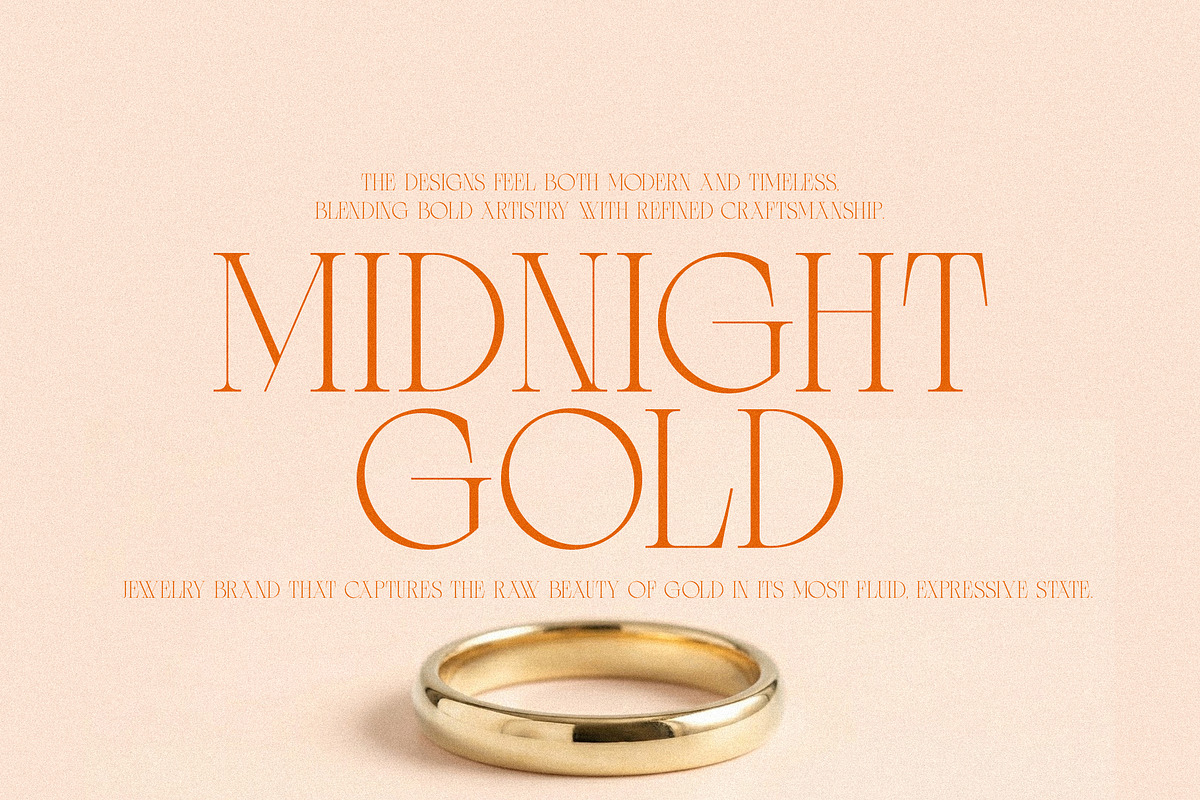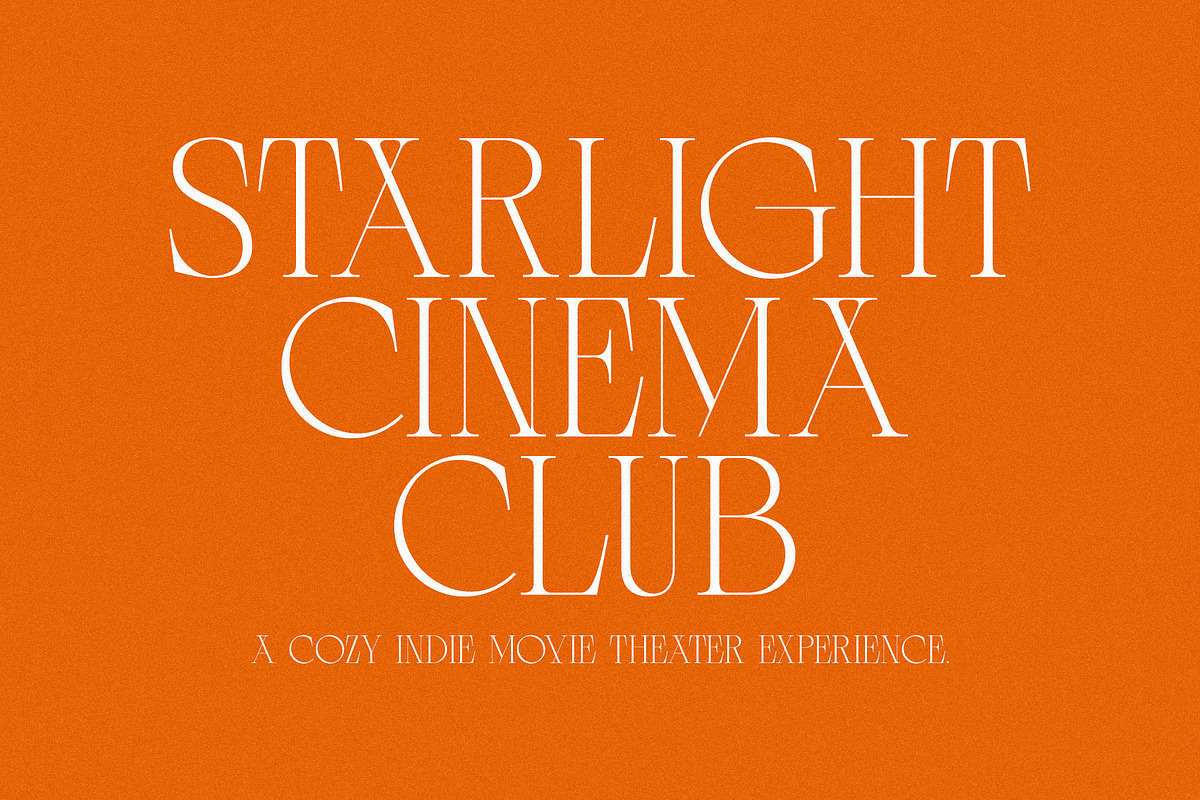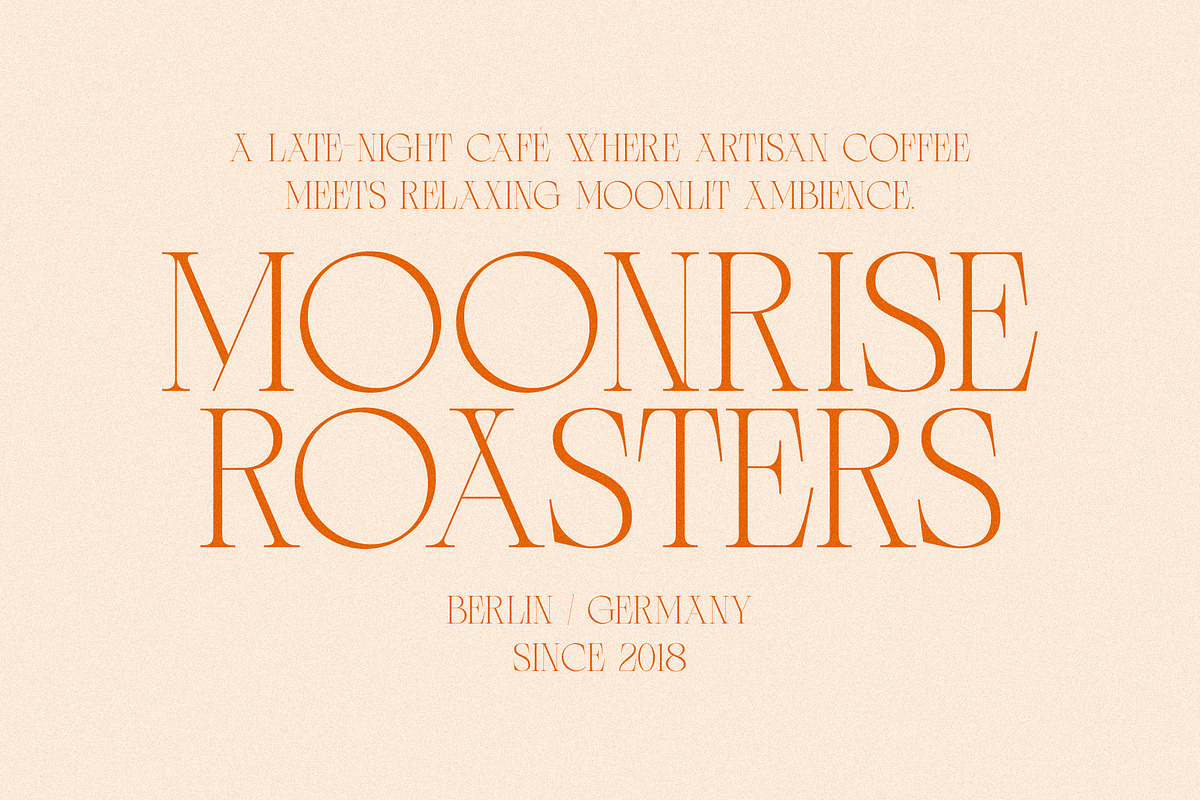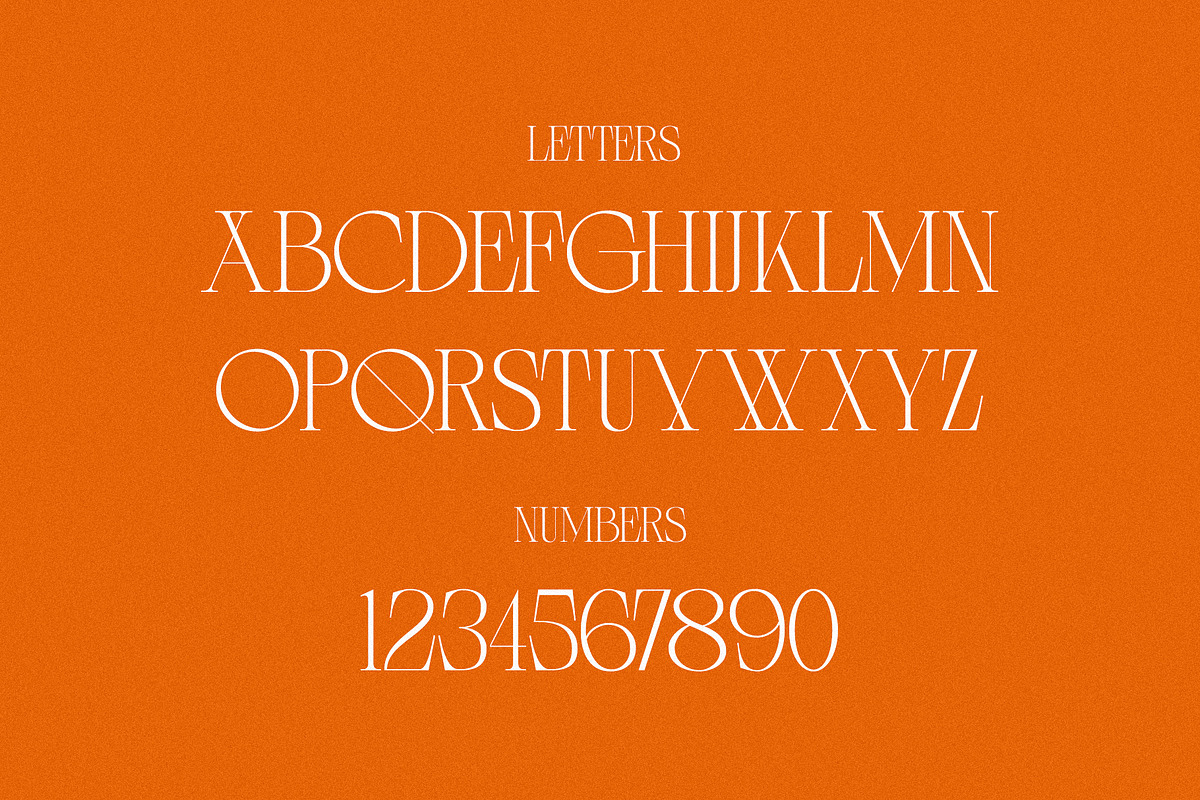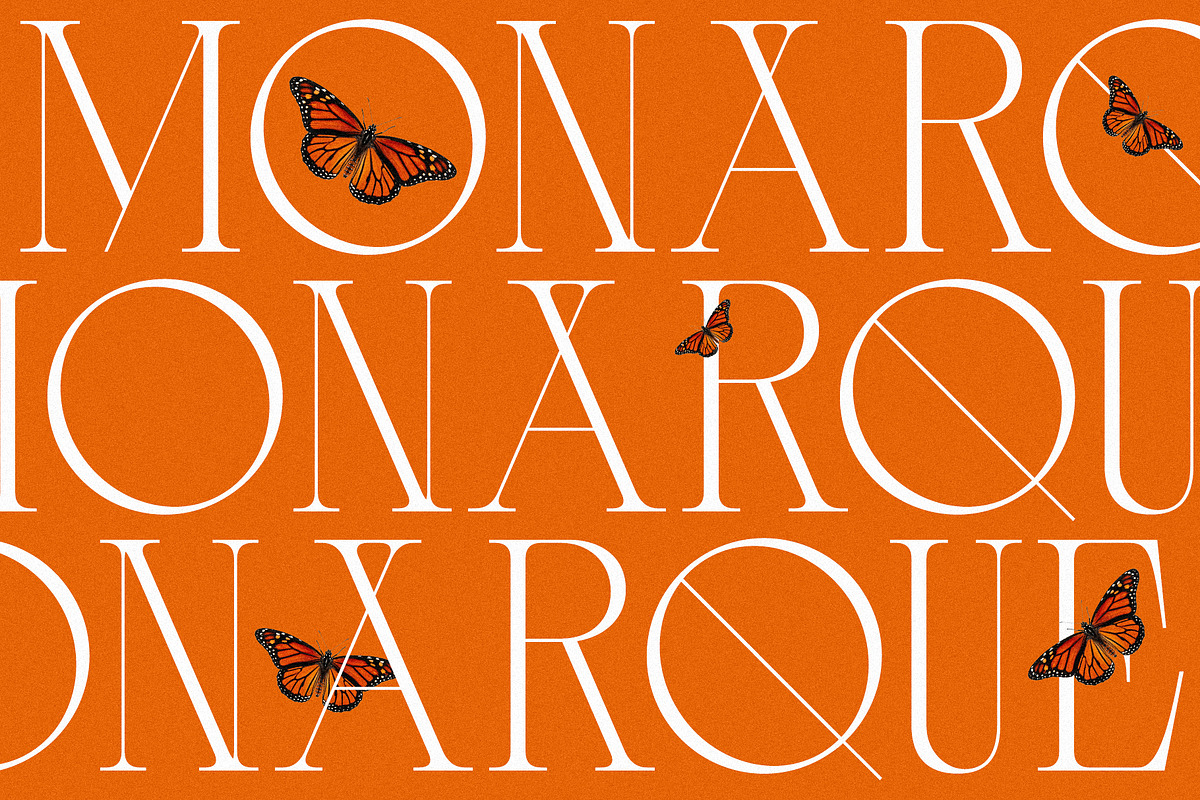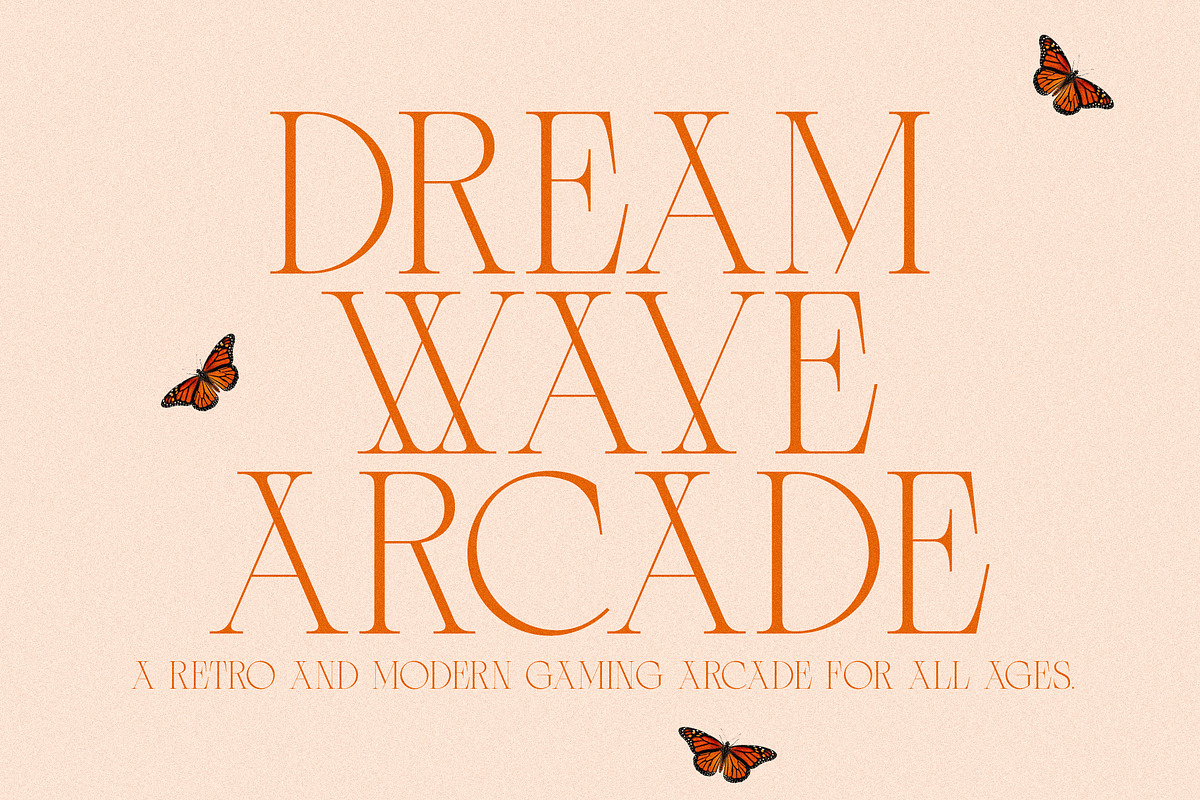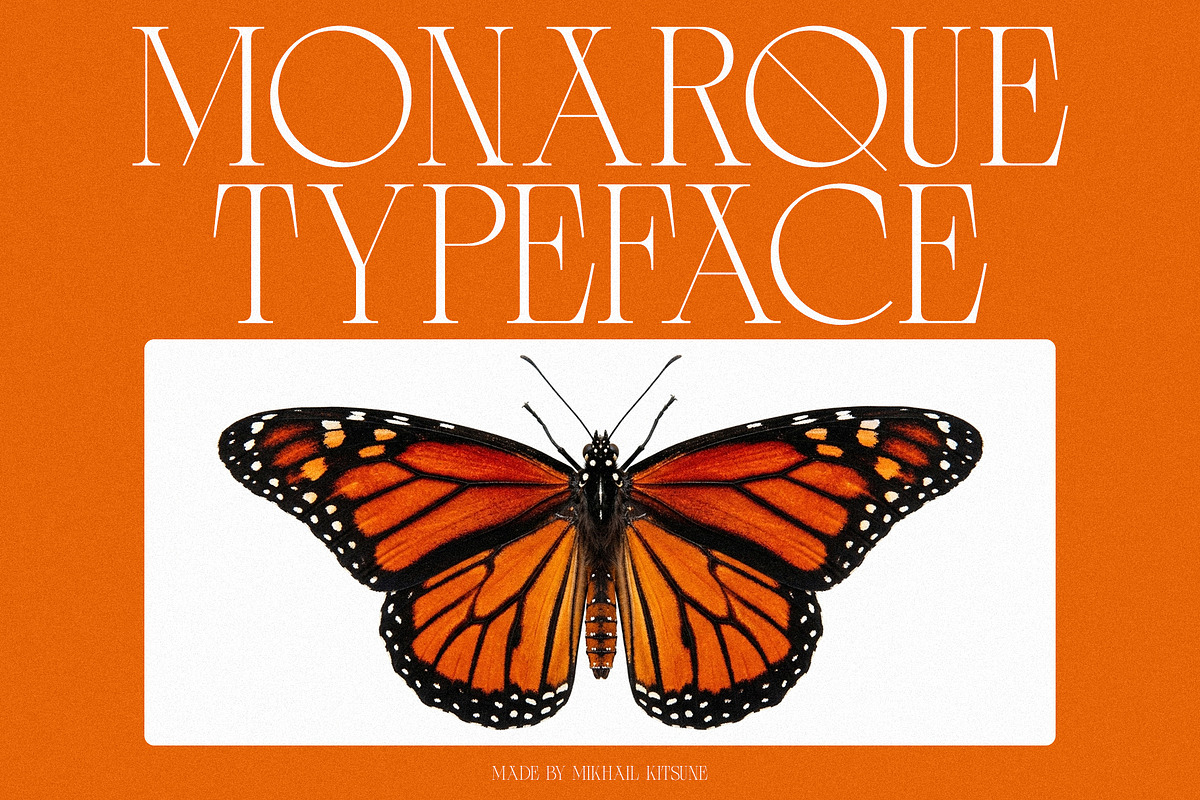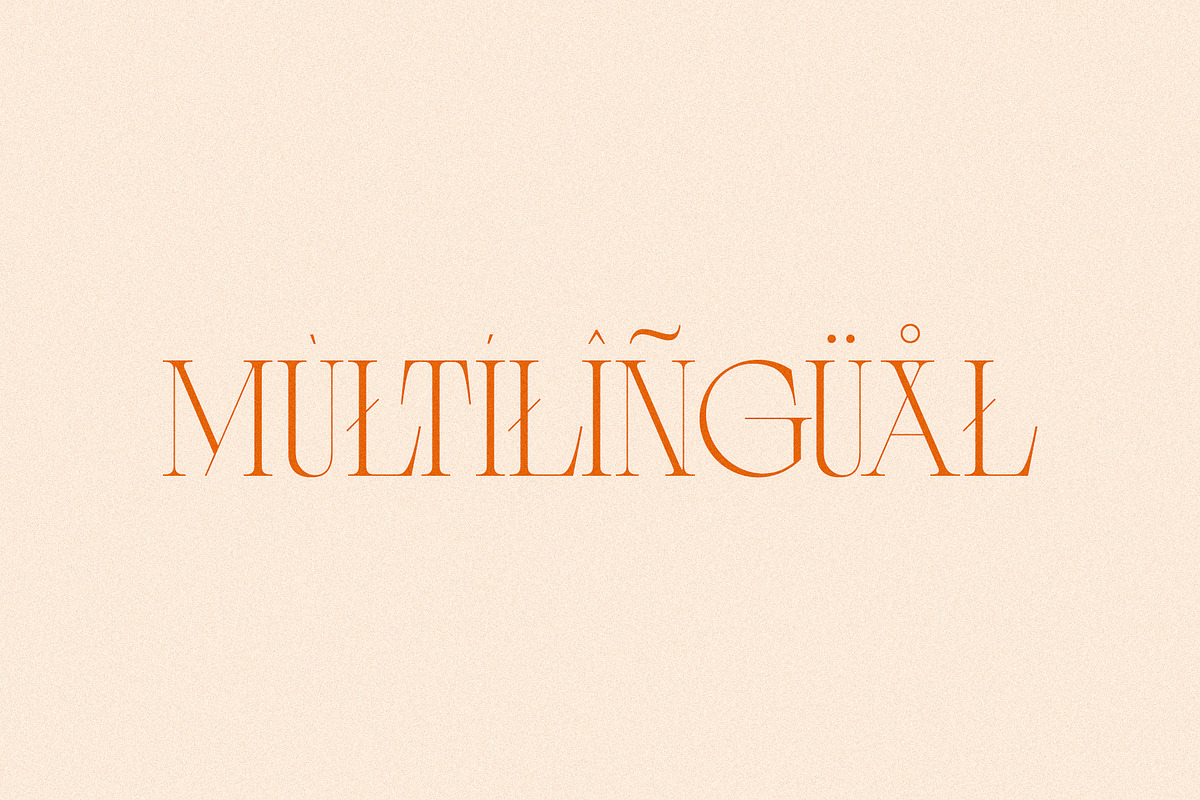
Monarque - Elegant & Chic Serif
Monarque is a refined serif typeface that embodies timeless elegance with a modern, fashion-forward edge. Features graceful curves, high-contrast strokes, and meticulously crafted letterforms that exude luxury and confidence. Perfect for branding, editorial design, logos, and high-end packaging, Monarque brings a sense of prestige and charm to any composition. Its chic aesthetic makes it especially suited for fashion, beauty, and lifestyle projects where visual impact and refinement are key.